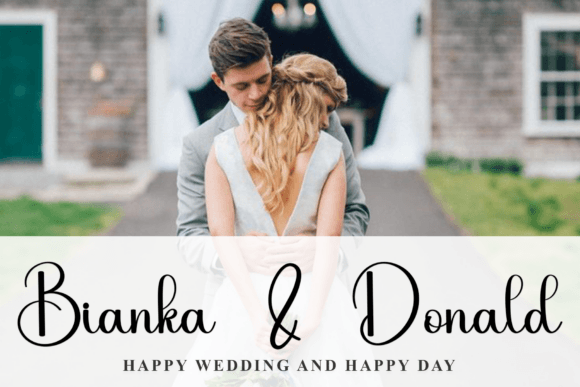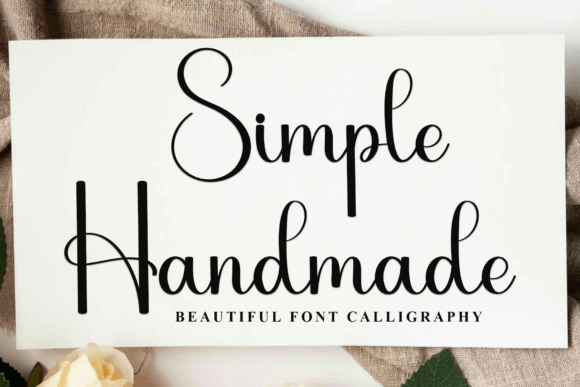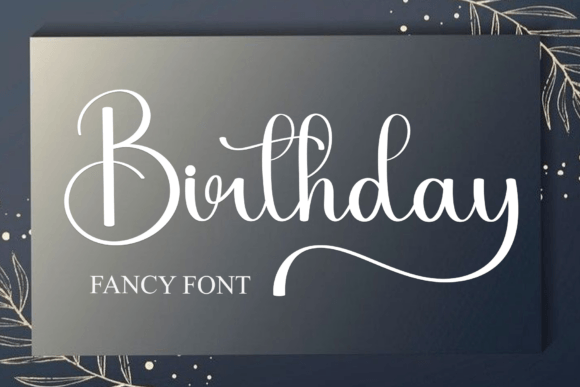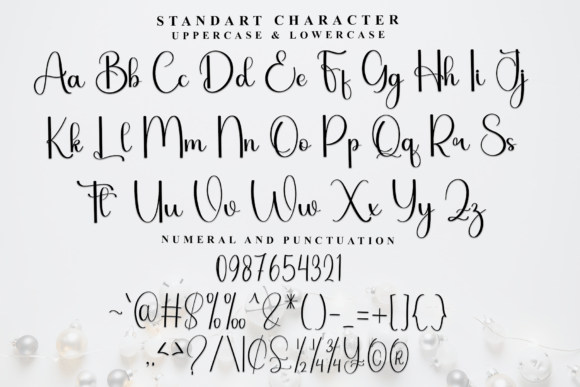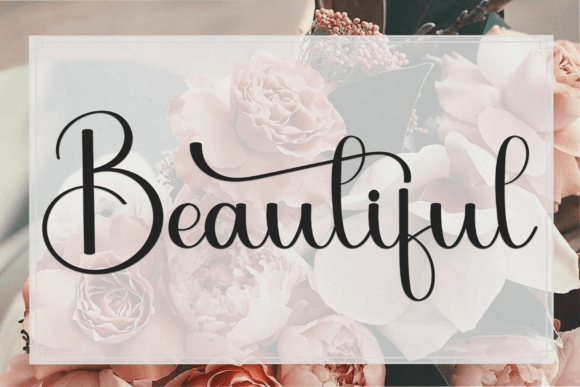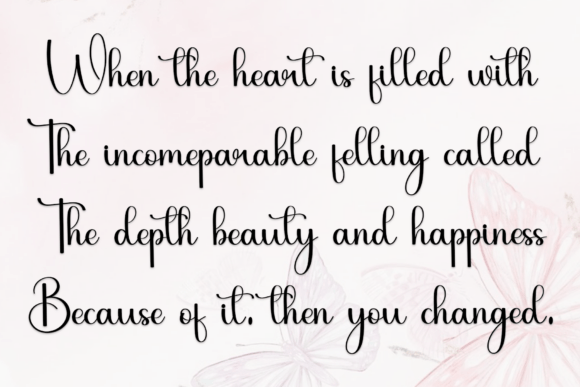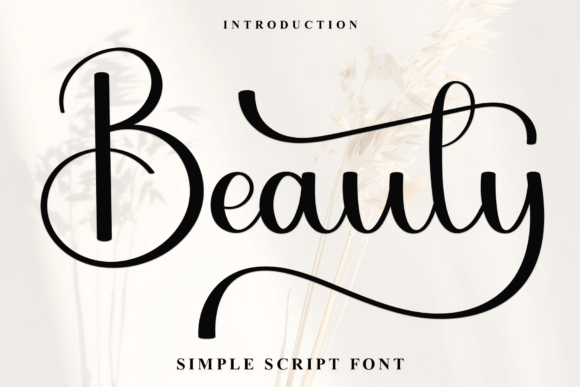
Introducing Beauty Font: The Ultimate Choice for Creative Designs
Are you tired of using the same old fonts for your personal projects, invitations, and social media graphics? Look no further! Beauty Font is here to revolutionize your design game with its casual and creative vibe. This charming font is designed to exude warmth and friendliness, making it perfect for anyone who wants to add a personal touch to their designs.
The Characteristics of Beauty Font
Beauty Font boasts round, playful strokes that create a relaxed and approachable feel. Its hand-drawn aesthetic adds a fun and unique touch to any design, making it stand out from the crowd. The font’s charming and whimsical nature makes it ideal for designers and crafters who want to create visually appealing content that resonates with their audience.
What Makes Beauty Font Special?
Perfect for Personal Projects and Designs
Whether you’re working on a personal project, creating invitations for a special occasion, or designing social media graphics, Beauty Font is the perfect choice. Its casual and creative vibe makes it suitable for a wide range of design applications, including:
- Personal projects: Use Beauty Font to add a personal touch to your blog, website, or social media profiles.
- Invitations: Create beautiful and unique invitations for weddings, birthday parties, or other special occasions.
- Social media graphics: Use Beauty Font to create eye-catching social media graphics that showcase your brand’s personality.
Benefits of Using Beauty Font
Using Beauty Font in your designs comes with a range of benefits, including:
- Unique and creative designs: Beauty Font’s hand-drawn aesthetic adds a touch of personality to your designs, making them stand out from the crowd.
- Easy to read: The font’s round and playful strokes make it easy to read, even at smaller font sizes.
- Versatile: Beauty Font works well across multiple platforms and software, making it a convenient choice for designers.
Tips for Using Beauty Font Effectively
To get the most out of Beauty Font, here are some tips to keep in mind:
- Experiment with font sizes: Beauty Font looks great at various font sizes, so don’t be afraid to experiment and find the perfect size for your design.
- Pair it with other fonts: Beauty Font works well when paired with other fonts, so try combining it with a sans-serif font for a unique look.